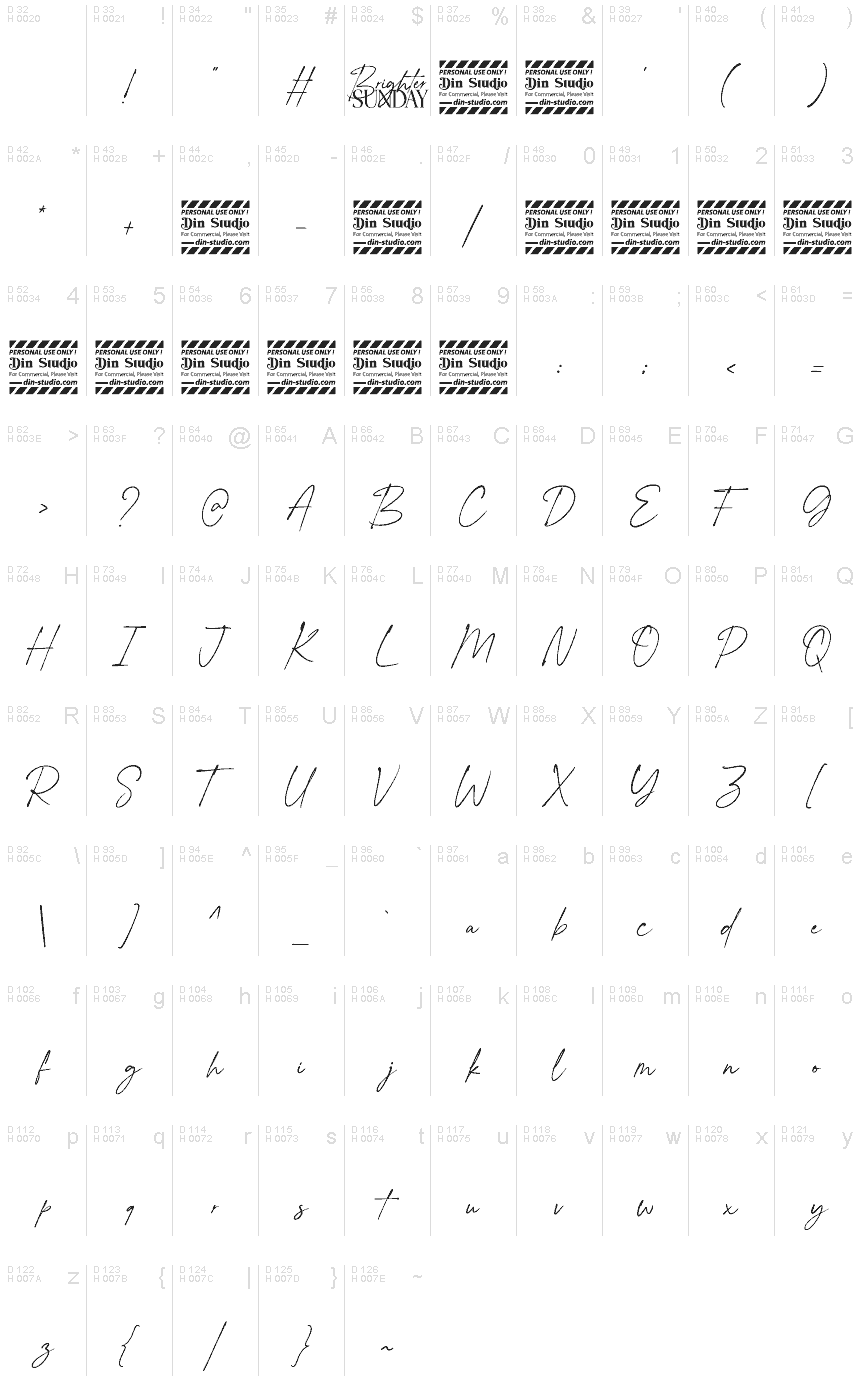
Brighter Sunday Personal Use
Brighter Sunday font by Din Studio is a free handwritten font where elegance and personal touch are the messages to be delivered with every use. The round yet expressive brush strokes culminate in the typeface’s signature style crowned by casual elegance which adds organic flow and an eye-catching appeal to its designs. The light font artistically balances between modernity and professionalism.
Brighter Sunday can be a useful design addition for magazine sections, titles, logotypes, and branding. It works well in packaging designs, particularly those related to beauty or food products as well as jewelry and accessories packagings that prefer typography style over imagery on their boxes. Book covers, particularly romance novels look also great with this unique display element!